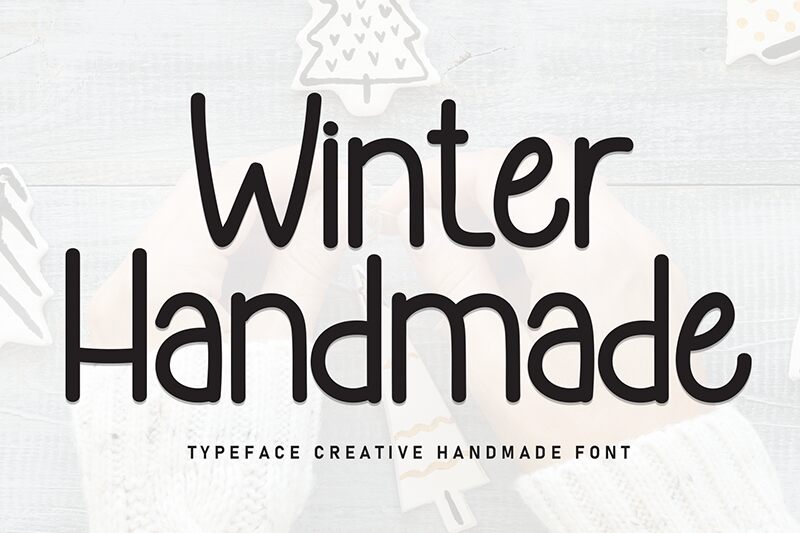
Winter Handmade
Winter Handmade font by Andi Moz captures a modern, approachable aesthetic through its rounded and handwritten style. Each character—uniquely crafted and slightly imperfect—adds to a casual elegance that feels both warm and inviting. Its handcrafted feel embodies a natural artistic touch that blends seamlessly with contemporary design.
This free handwritten font is perfect for projects featuring journal headers, art prints, package design, event invitations, website banners, social media graphics, book titles, greeting cards, branding materials such as logos and signatures—inviting a subtle infusion of creativity.